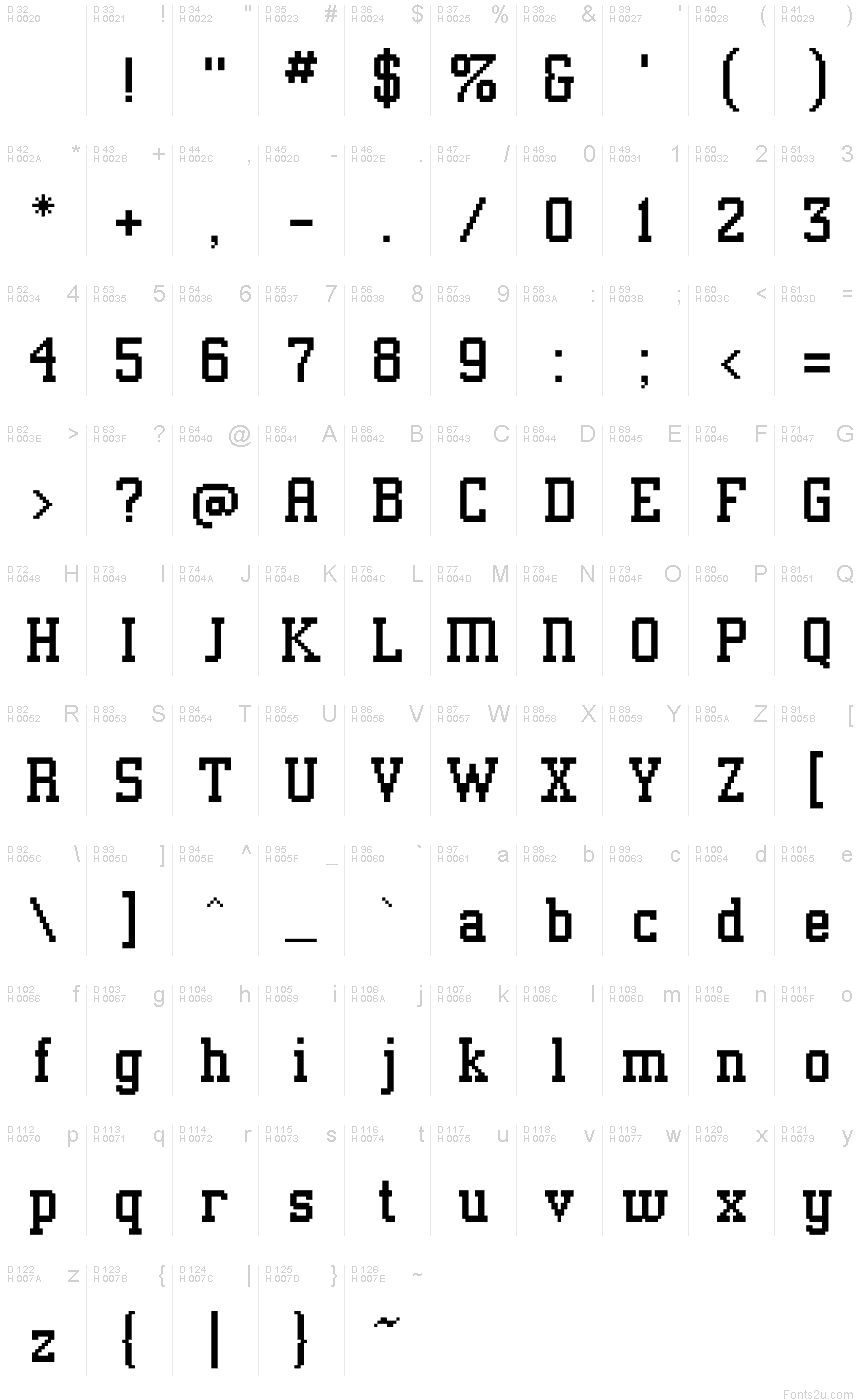
Athens Classic
Remake of the old Apple bitmap font "Athens." Optimal size is 22px; won't break in Flash.
TrueType port of the old Apple bitmap font "Athens."